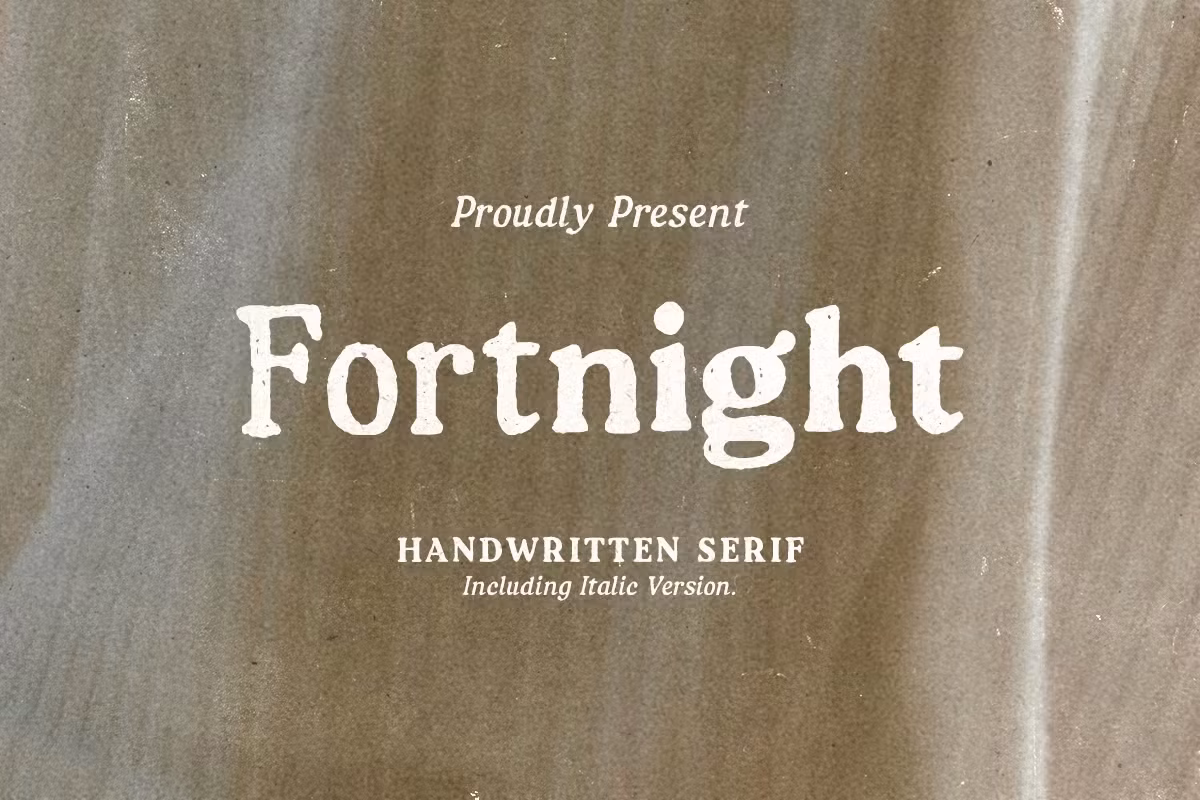
Fortnight - Handwritten Serif Family Free Download is a unique and charming typeface family that combines the elegance of serifs with the warmth of handwritten style. Featuring multiple weights and styles, Fortnight offers versatility for a variety of design needs, from headlines to body text, making it perfect for branding, editorial design, invitations, logos, and more.
The handwritten touch gives it a personalized, organic feel, while the serifs maintain a sense of structure and sophistication. Whether you're designing for a boutique, crafting a wedding invitation, or working on a creative project, Fortnight brings character and flair to your typography.